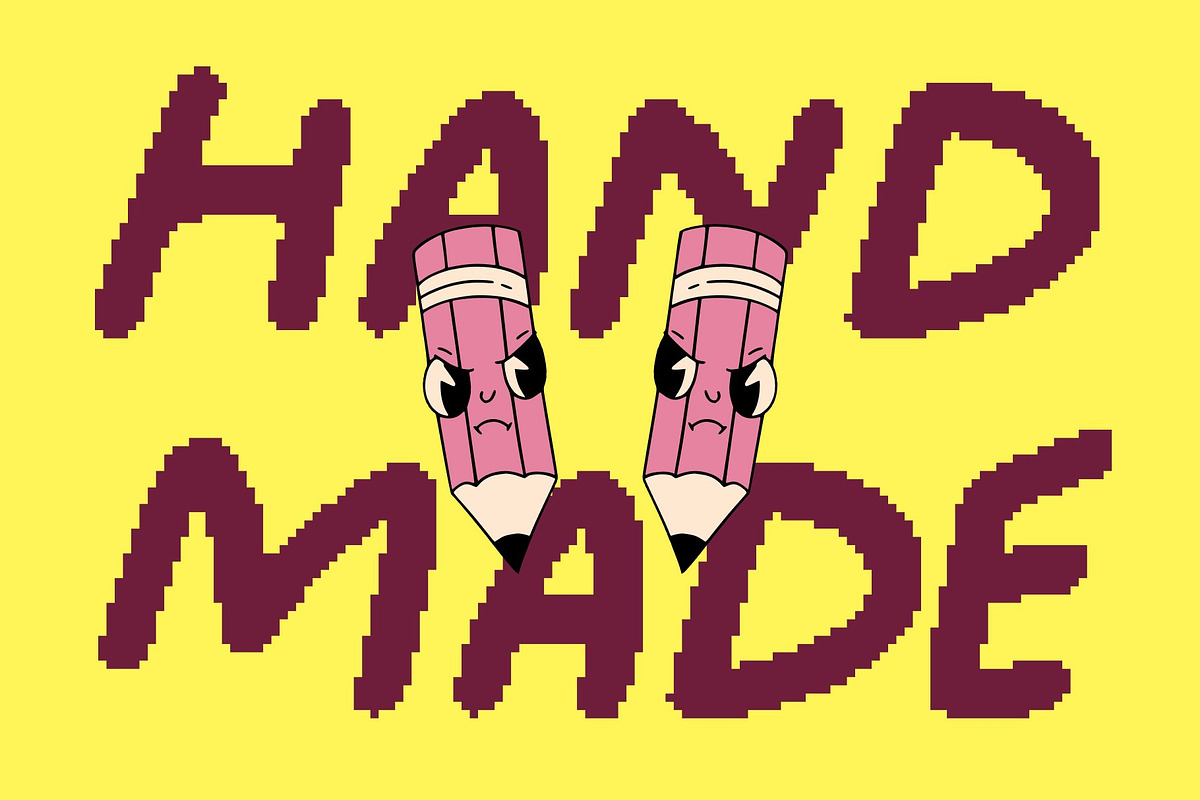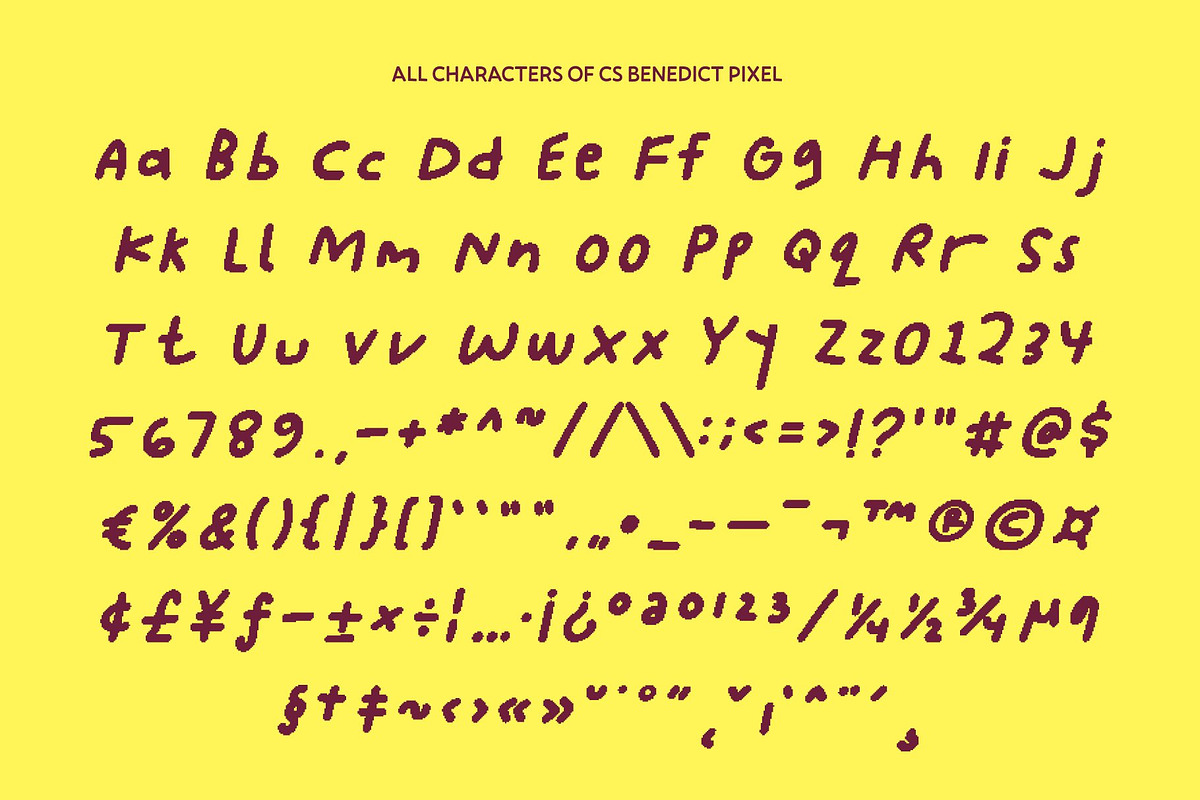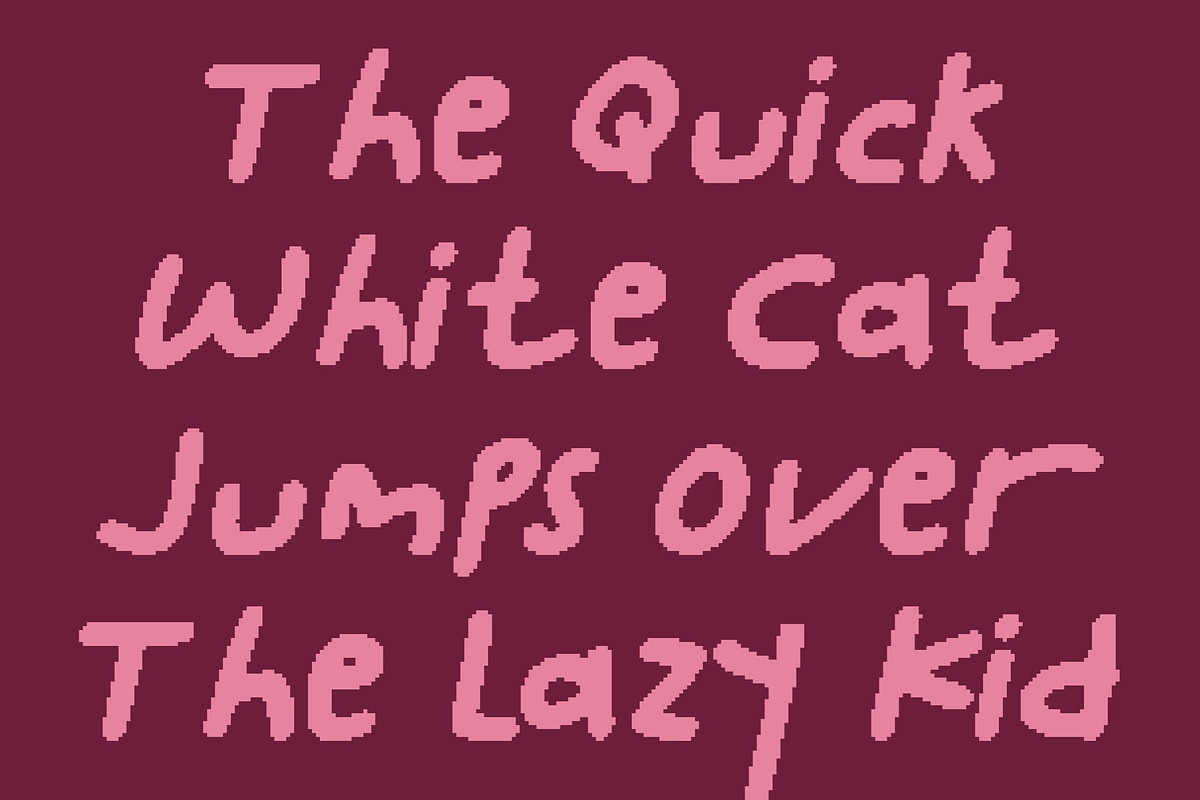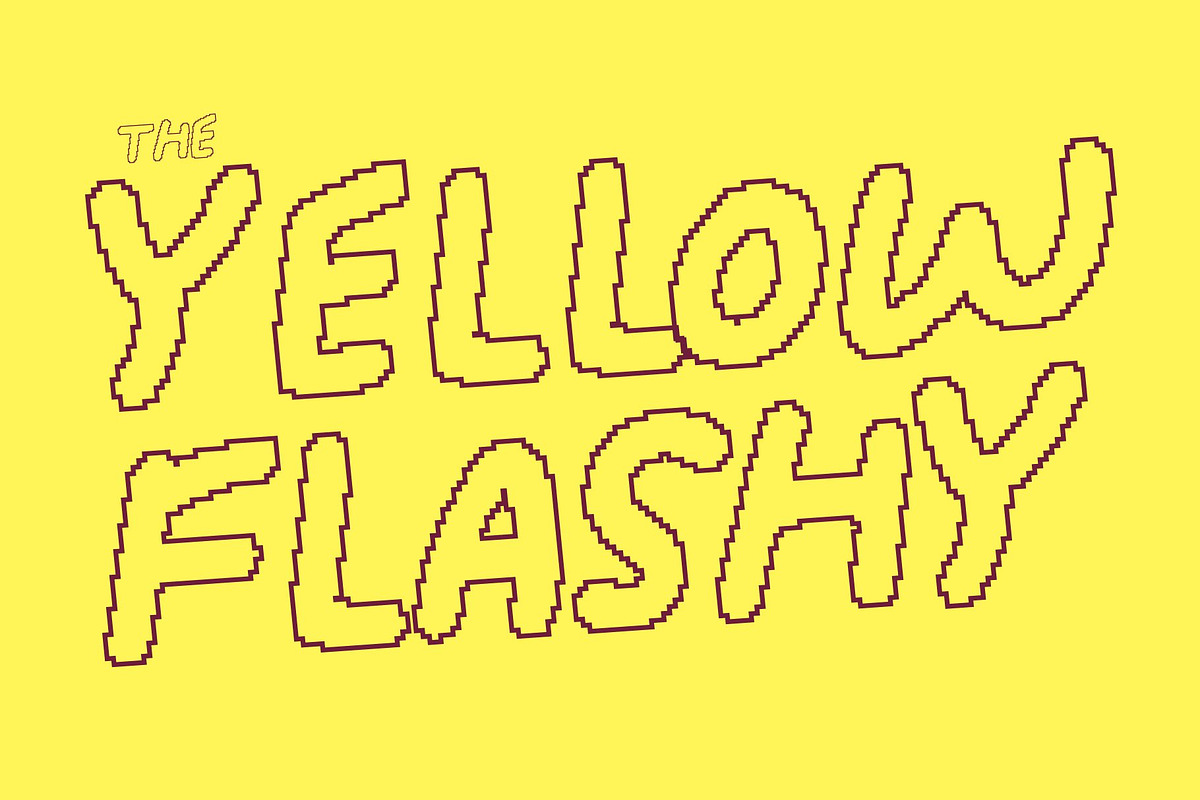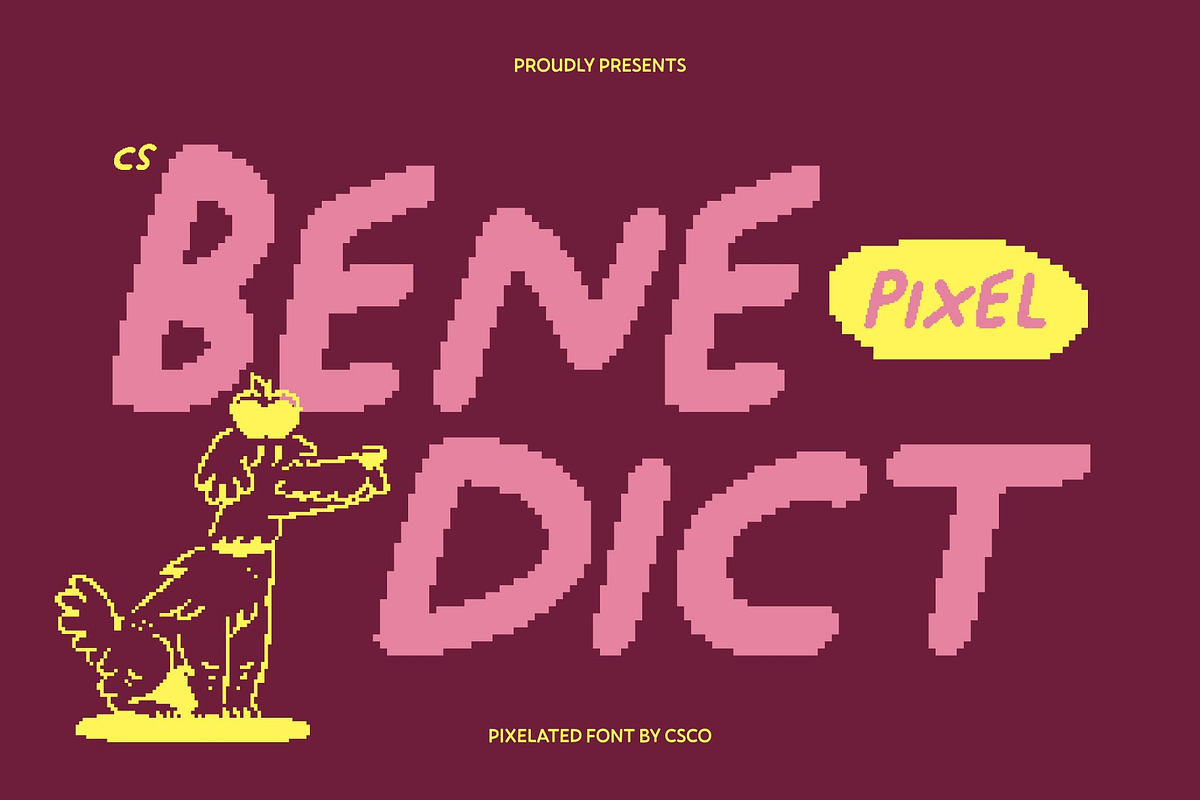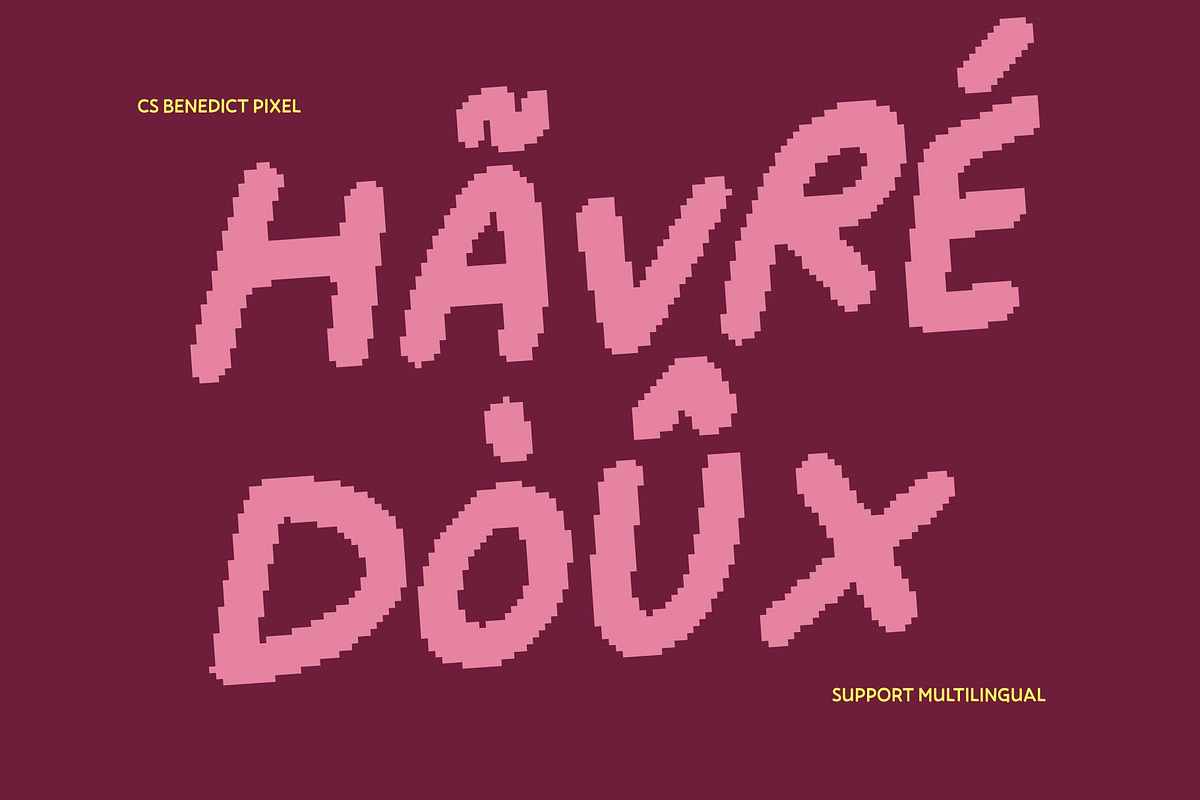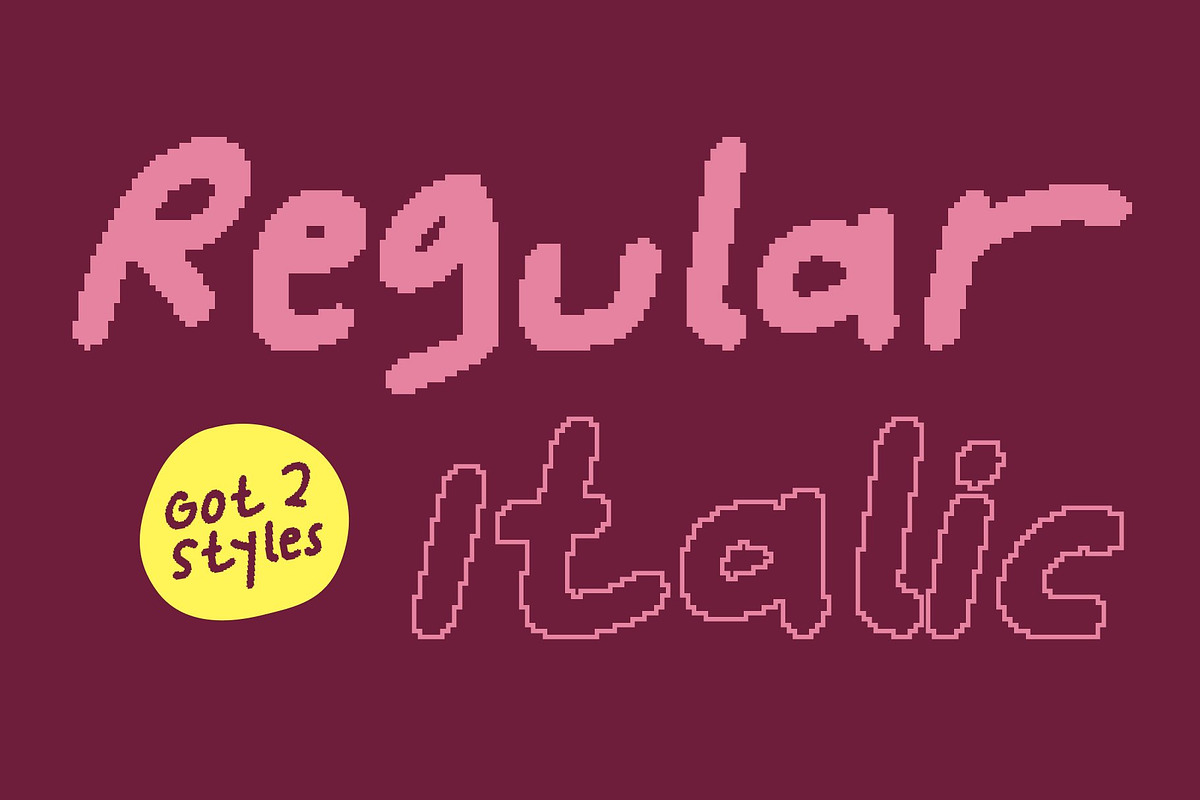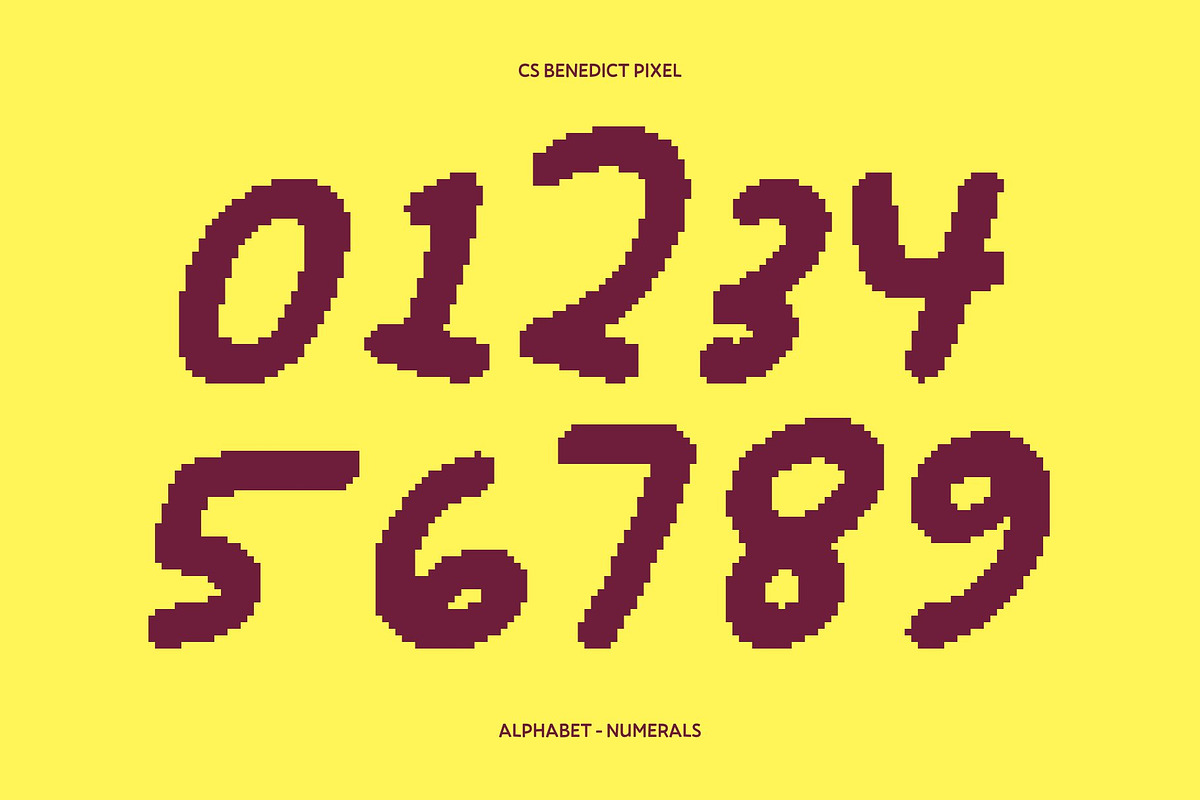
CS Benedict Pixel
CS Benedict Pixel – Gritty Messy Font with Playful Scribbled Pixel Energy
Irregular Scribbled Style with Bold Pixel Character This is a gritty, messy display font designed to look freely scribbled, chaotic, and delightfully irregular now reimagined through a pixel-based structure. Its rough, hand-drawn strokes are translated into blocky pixel forms, giving the font a raw, expressive personality with an unmistakable old-school digital feel.
Playfully Messy with Retro Digital Attitude Every character feels spontaneous and unrestrained, as if sketched freely and then converted into pixels. The messy rhythm and uneven flow create a playful, energetic vibe, while the pixel style adds nostalgic charm reminiscent of early digital graphics and classic games. This combination makes designs feel lively, youthful, and full of movement, with a fun retro-tech twist.
Perfect for Kids’ Designs and Pixel-Themed Creativity This font shines in children’s designs, educational visuals, playful games, and creative projects that embrace fun and imperfection. Its cheerful messiness paired with pixel construction makes it especially engaging for young audiences and retro-inspired concepts. The font feels warm, approachable, and handmade, while still fitting perfectly into pixel-art and digital themes.
Ideal for Fun Branding, Posters, Games, and Casual Visuals From expressive posters and playful branding to social media graphics, game titles, and pixel-style packaging, this font delivers strong visual impact with its messy, energetic charm. This font is perfect for projects that want to feel informal, creative, nostalgic, and full of personality.